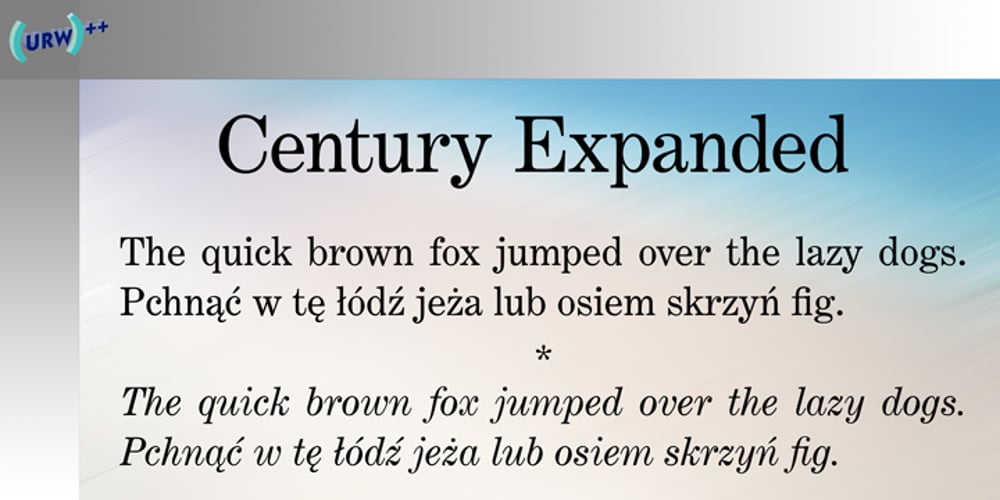
Century Expanded Font Family was designed by Morris Fuller Benton and published by URW Type Foundry. Century Expanded contains 2 styles and family package options. The first Century typeface was cut in 1894 by Linn Boyd Benton in conjunction with T L DeVinne for the Century Magazine. It was a blacker, more readable face than the type previously used. Morris Fuller Benton designed the Century Expanded version in 1900 for American Type Founders to meet the Typographical Union Standard of the day. The ‘expansion’ was in the vertical plane. Century Expanded is a useful font family for text setting in magazines, books, presentations and newsletters.